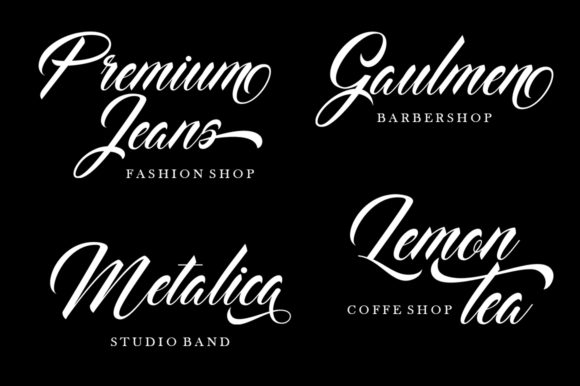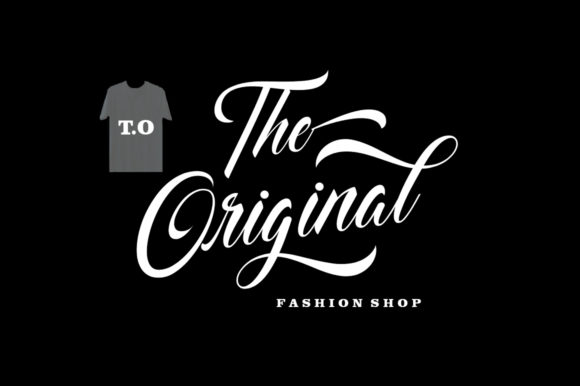
Kingston Font
db-ku.com - Script & Handwritten -- Kingston is an elegant and flowing handwritten font. It is PUA encoded which means you can access all of the glyphs and swashes with ease! It maintains its classy calligraphic influences while feeling contemporary and fresh. Fall in love with this font and bring your projects to the highest levels!